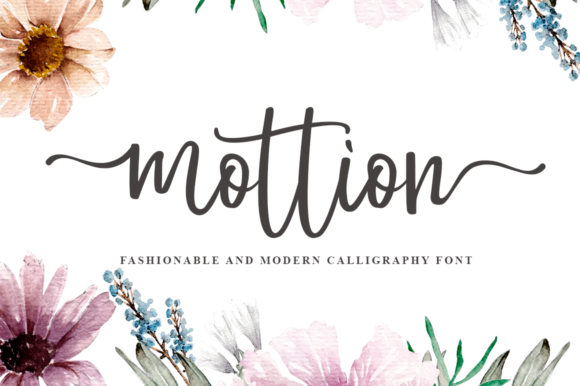
Introducing Mottion Font: The Gateway to Playful Expression in Your Digital Creations!
In the realm of digital artistry, fonts hold the power to elevate your creations, transforming them into captivating expressions of your unique style. Mottion Font, a delightful script typeface, embodies this transformative power, inviting you to infuse your designs with a touch of playful charm and heartfelt authenticity.
Crafted with meticulous care by Haksen, a renowned font designer, Mottion Font is a manifestation of creativity and imagination. Its fluid lines and whimsical curves dance across the screen, capturing the essence of handwritten notes penned with youthful exuberance. Each character carries a story, whispering tales of joy, friendship, and unbridled optimism.
Explore the Limitless Possibilities of Mottion Font
With Mottion Font as your creative companion, the possibilities are endless. Whether you're designing social media graphics that demand attention, creating eye-catching logos that resonate with your brand's personality, or crafting website headers that exude warmth and approachability, Mottion Font is your trusted ally. Its versatility extends to invitations, greeting cards, posters, and even heartfelt letters, adding a personal touch that transforms ordinary words into heartfelt messages.
Immerse Yourself in a World of Joyful Expression
Mottion Font is more than just a collection of characters; it's a gateway to a world where creativity flourishes and self-expression knows no bounds. Its cheerful disposition lends itself effortlessly to projects that aim to uplift spirits, spread joy, and inspire hope. Imagine your social media feed adorned with Mottion Font's infectious energy, captivating your audience with its playful charm. Picture your website headers radiating warmth and inviting visitors to embark on a delightful journey through your online space.
Unleash Your Inner Artist with Mottion Font
Mottion Font is not merely a tool; it's an extension of your creative spirit, a conduit through which your unique style can shine. Its easy-to-use format allows you to effortlessly integrate it into your design software, making it a seamless addition to your creative arsenal. Whether you're a seasoned designer seeking a touch of whimsy or a budding artist exploring new avenues of expression, Mottion Font is your perfect companion.